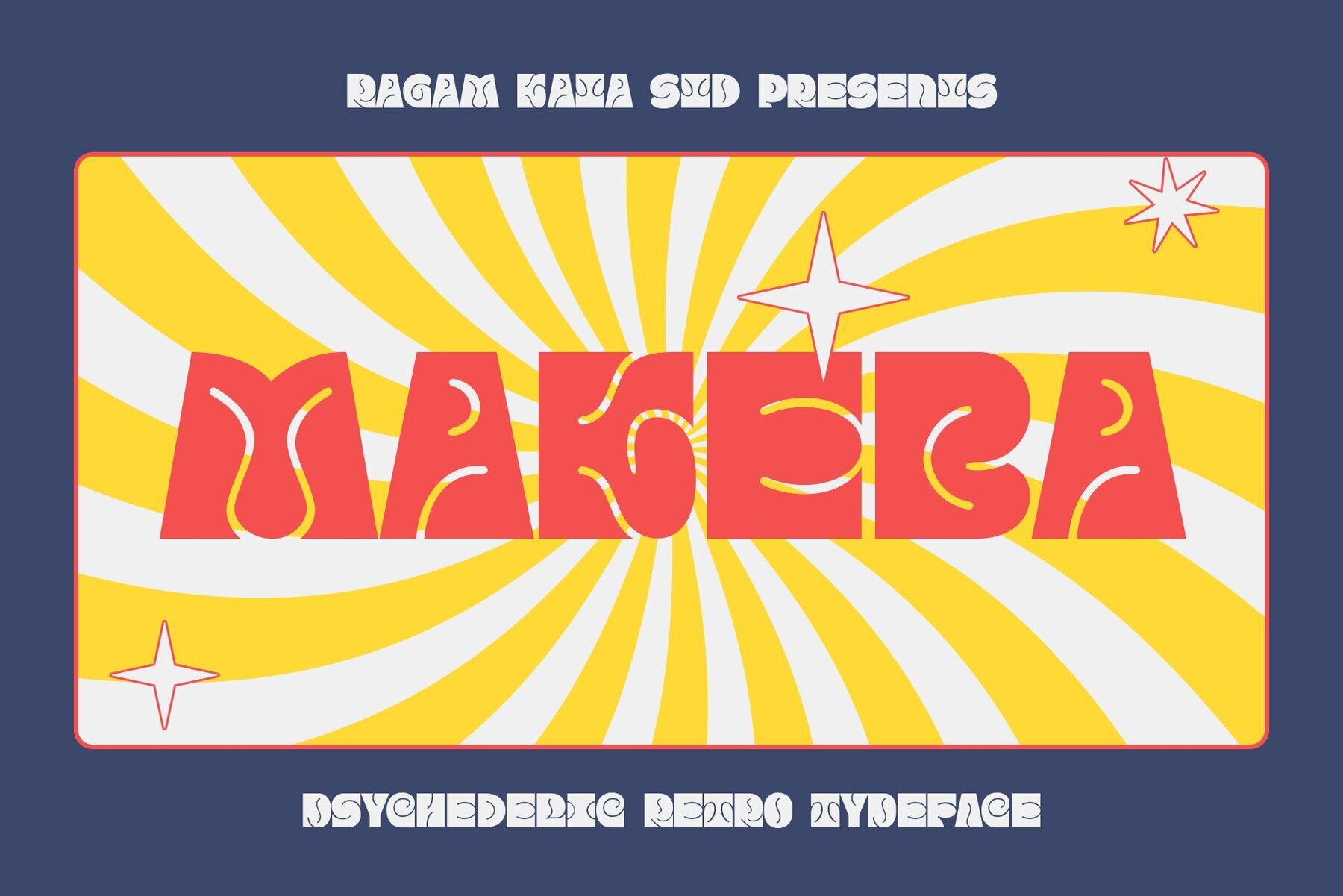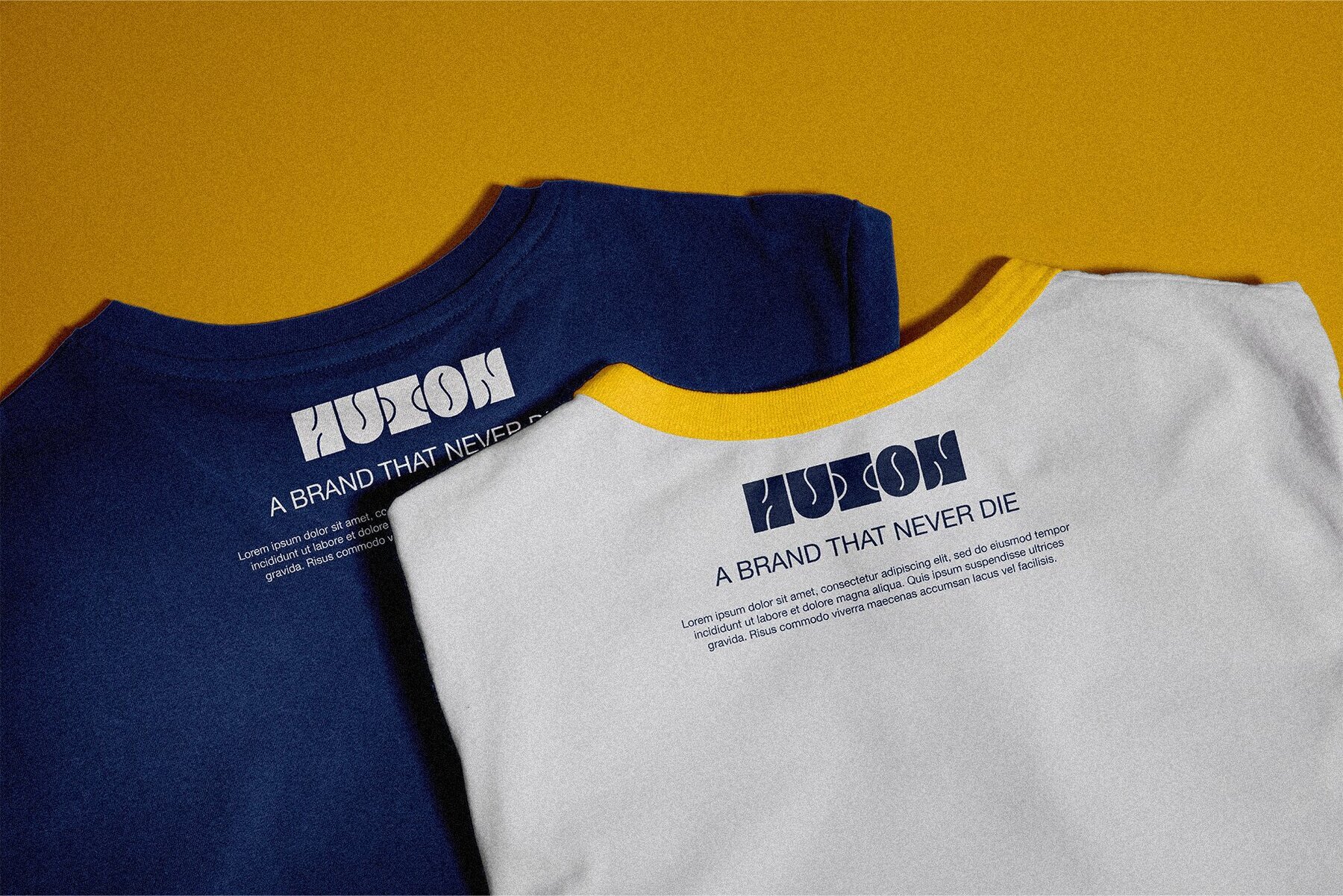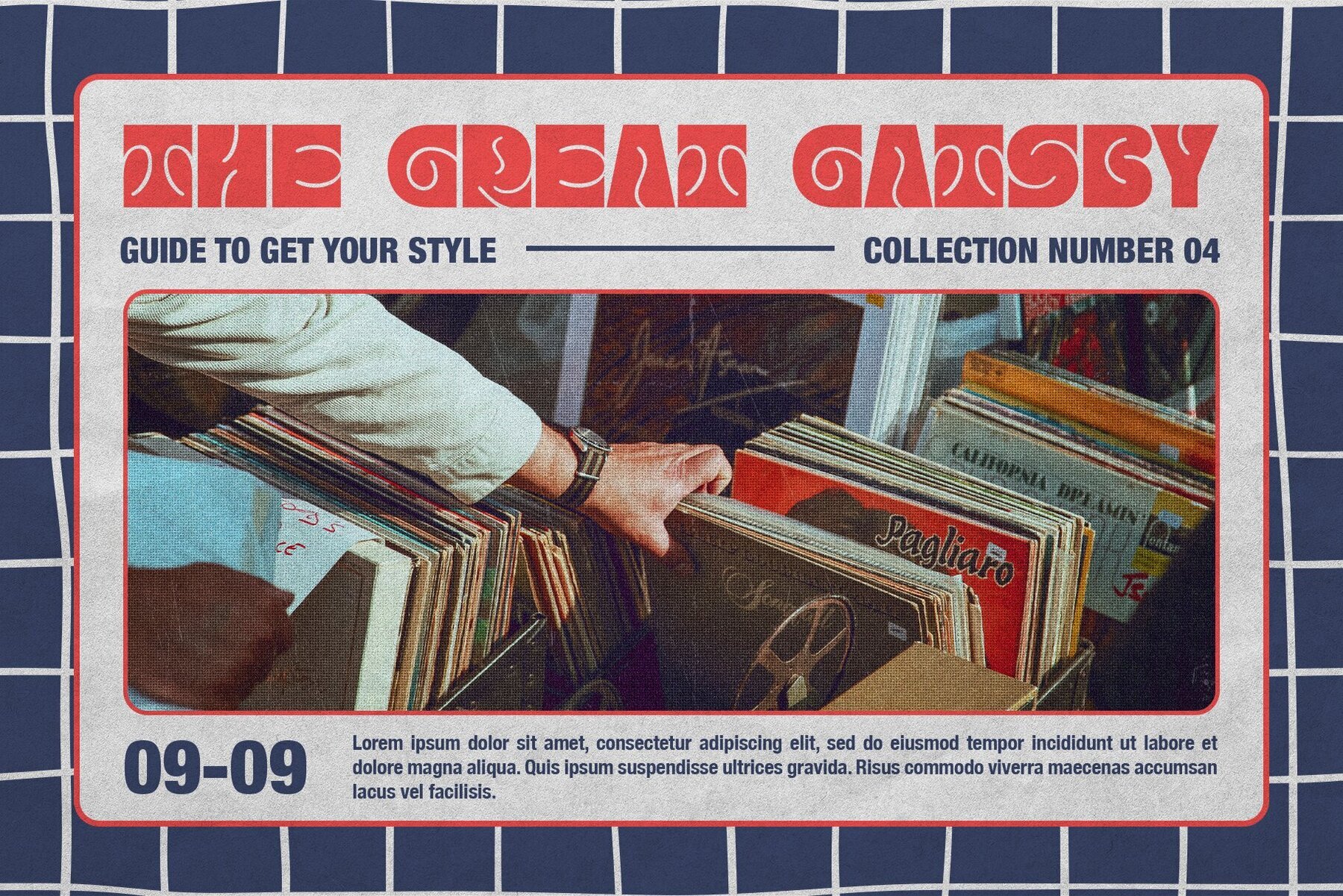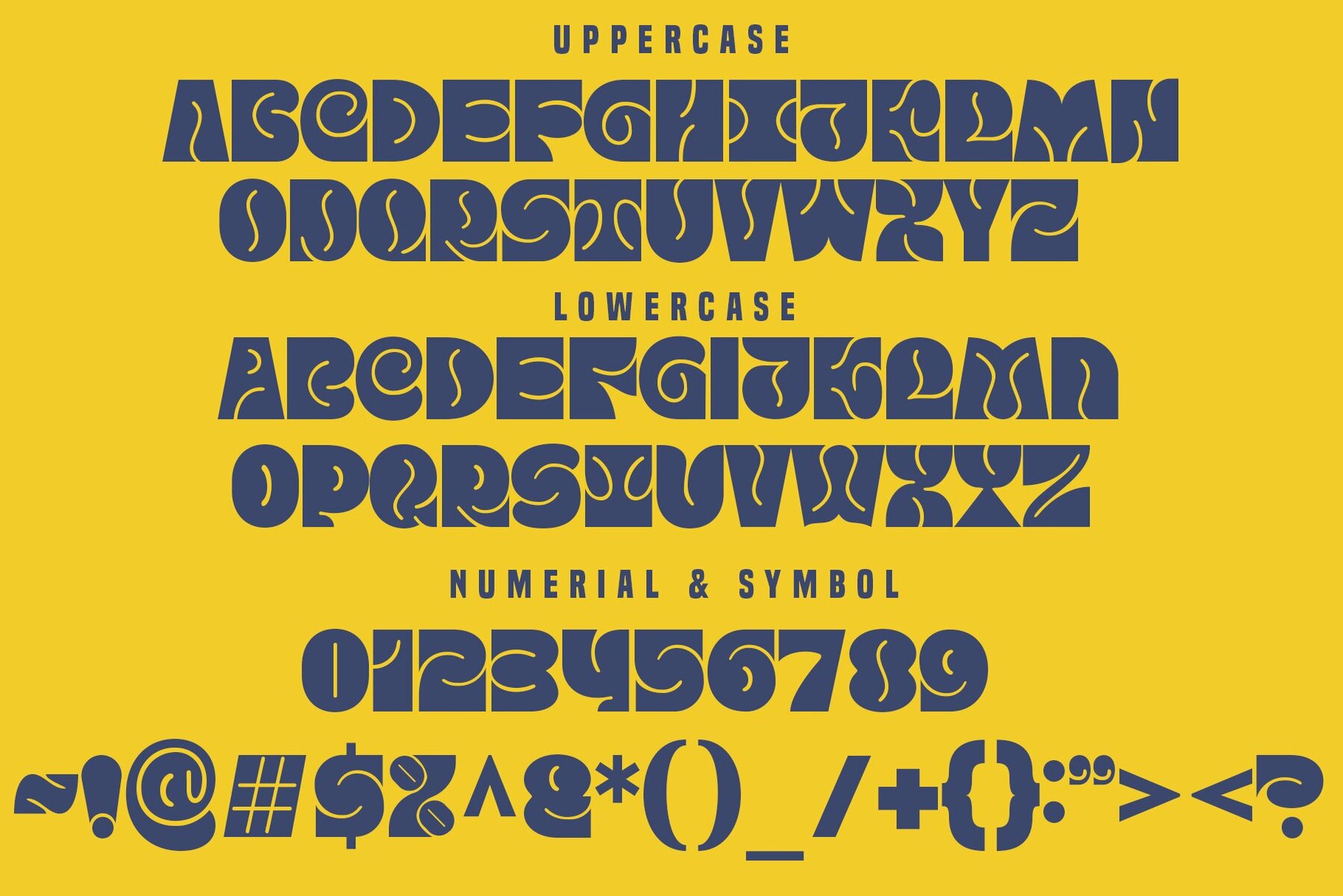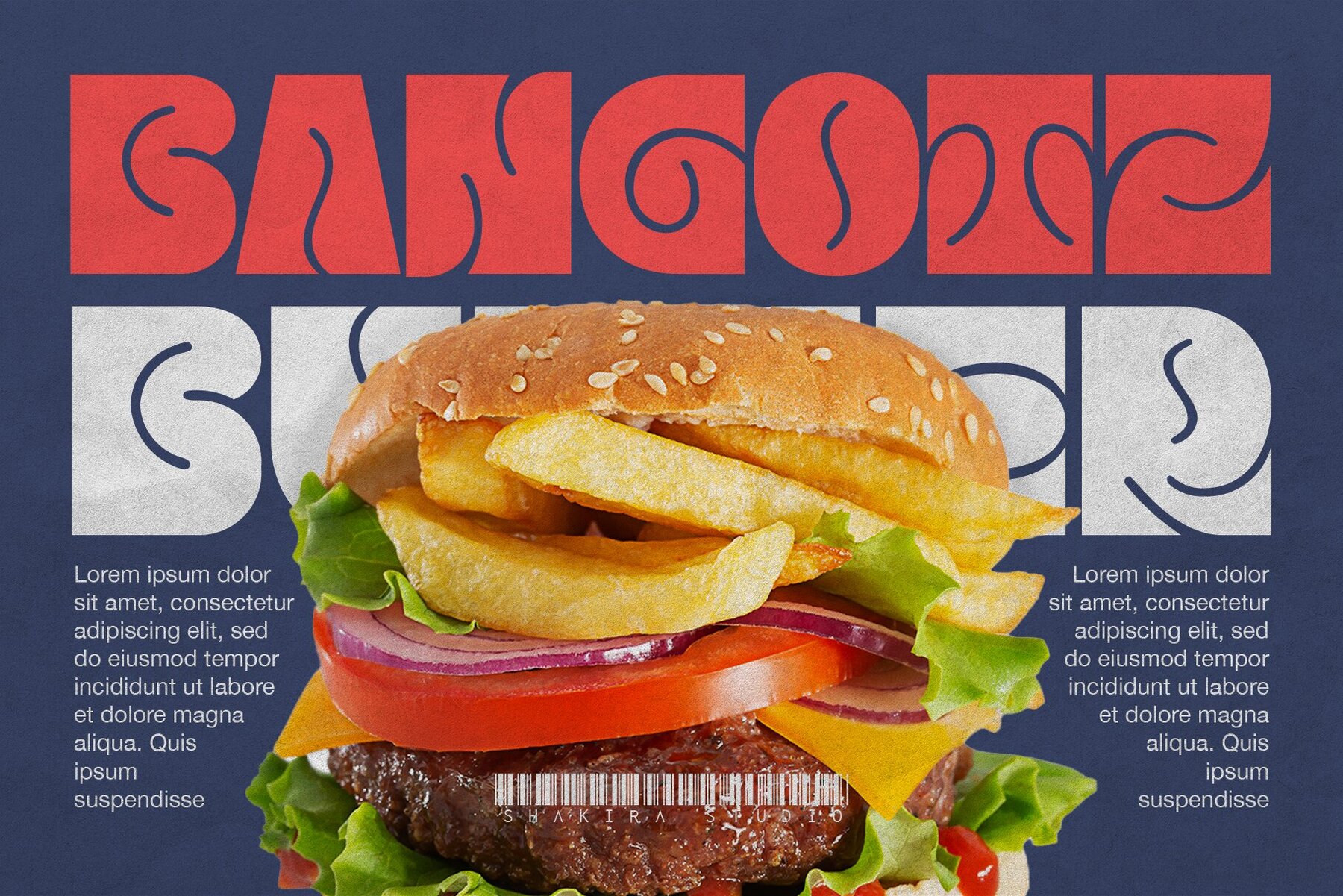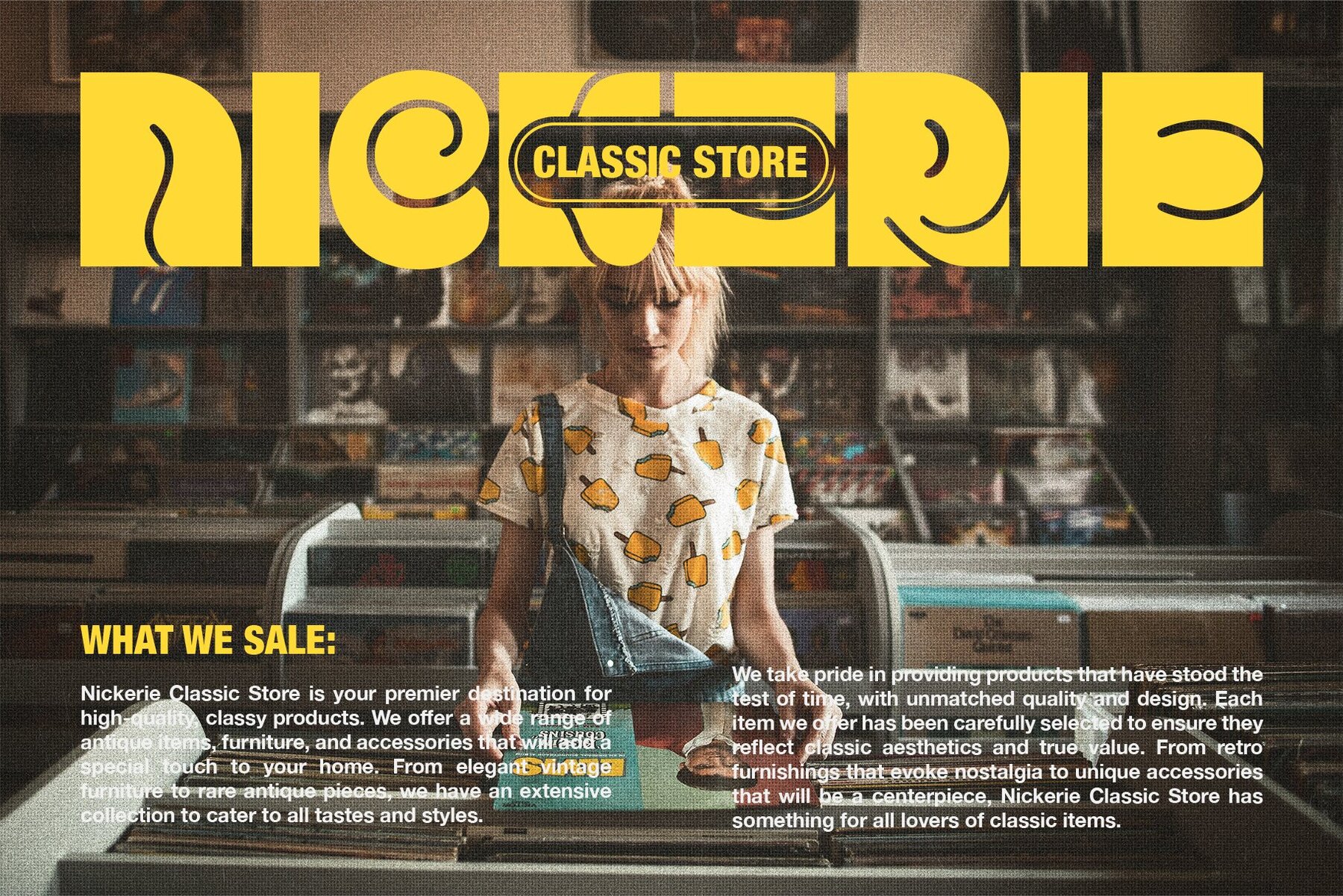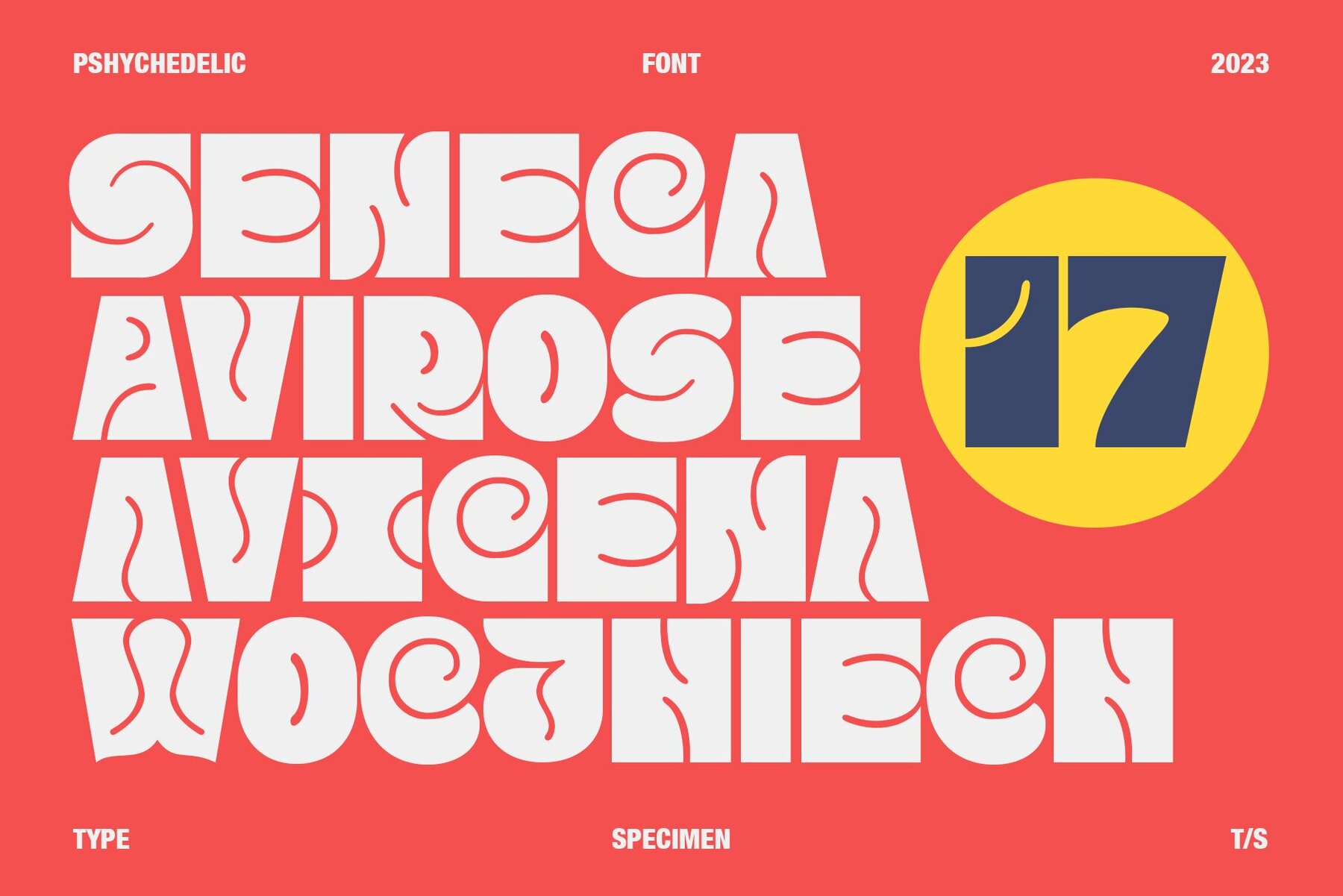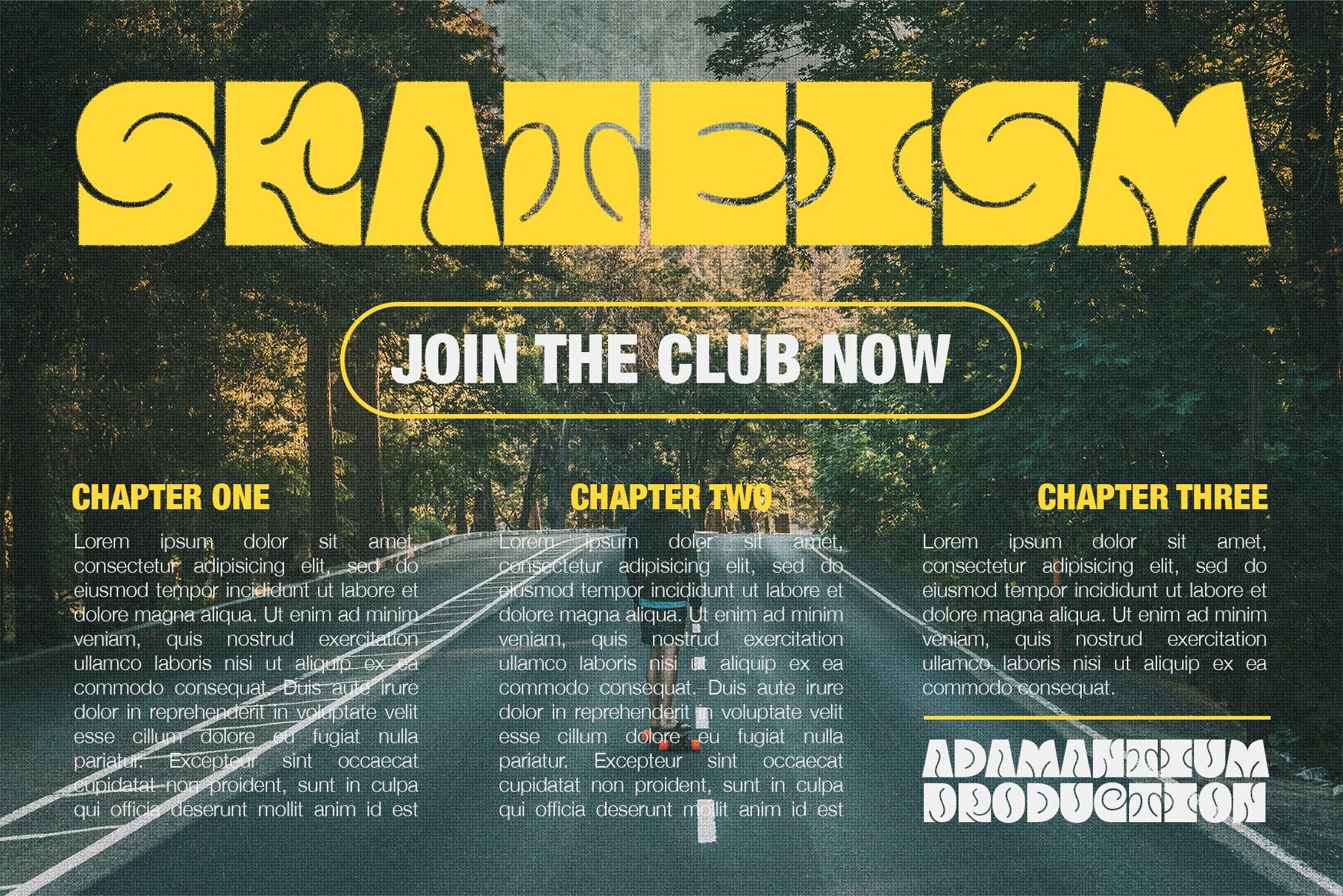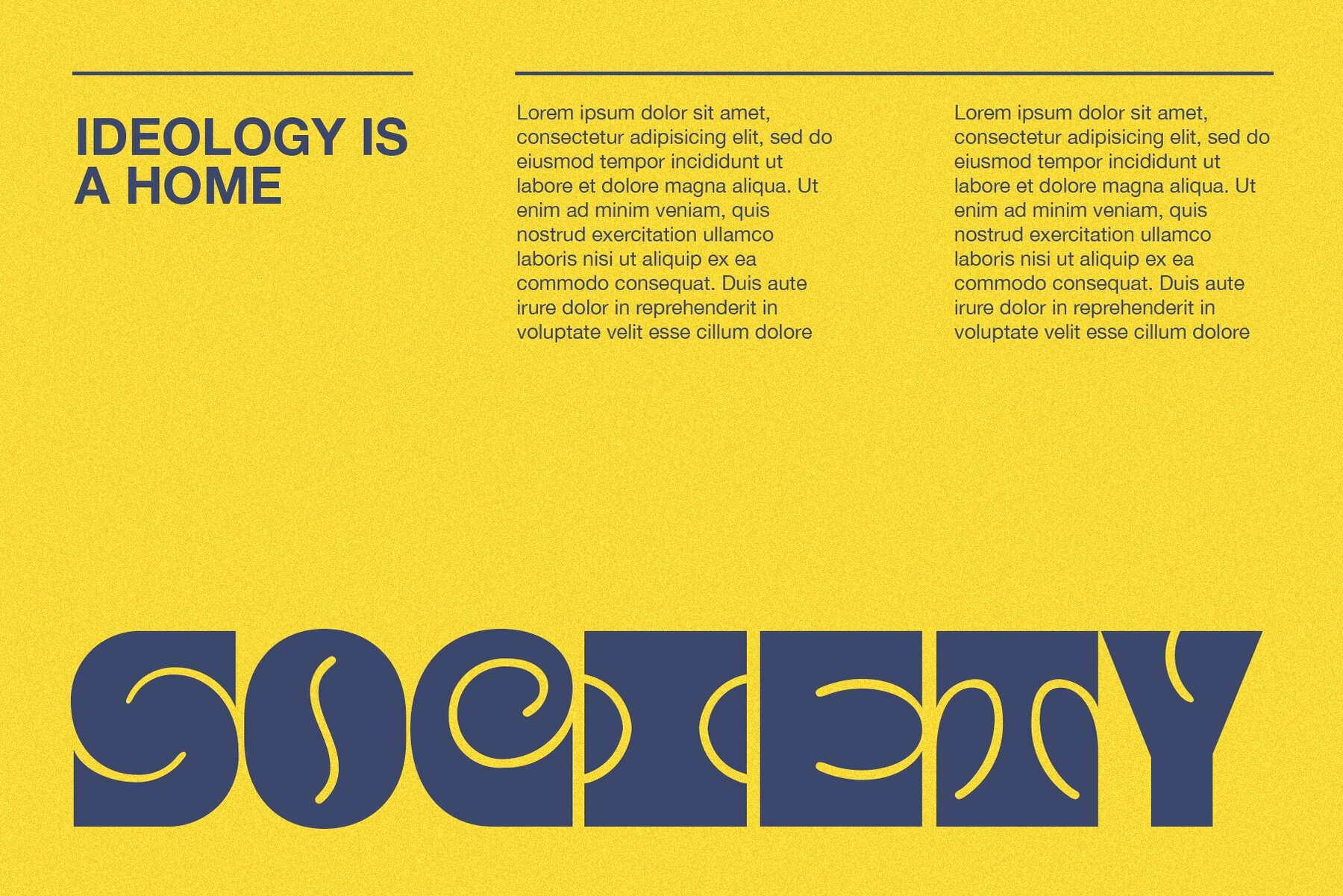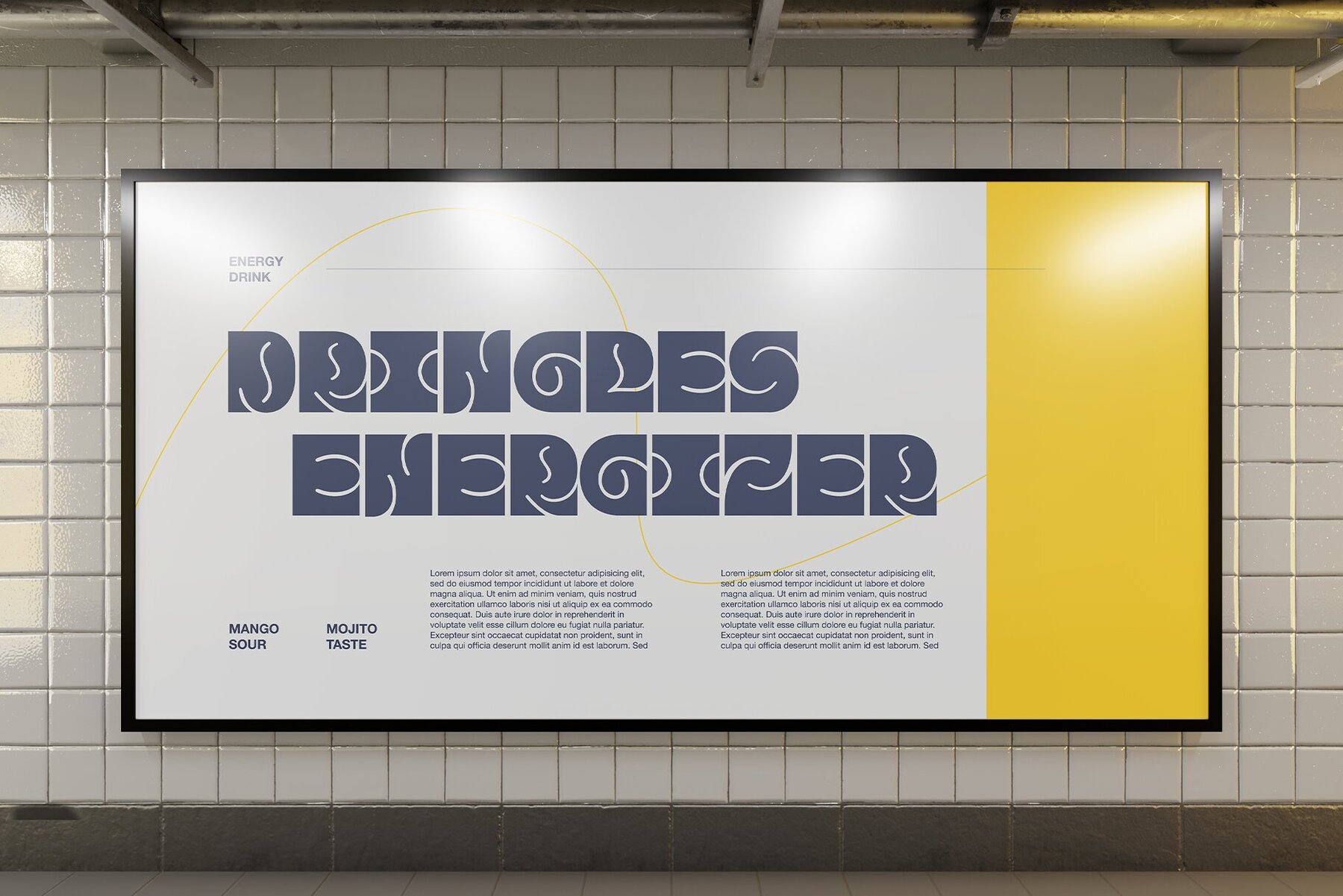
Makeba Font
Makeba Regular
Makeba is a dynamic typeface that combines a psychedelic aesthetic with bold, striking design elements. This typeface is perfect for bringing a touch of vintage flair to your retro projects, making it ideal for music posters, album graphics, book titles, and more.Makeba: Psychedelic Typeface for Dynamic Designs